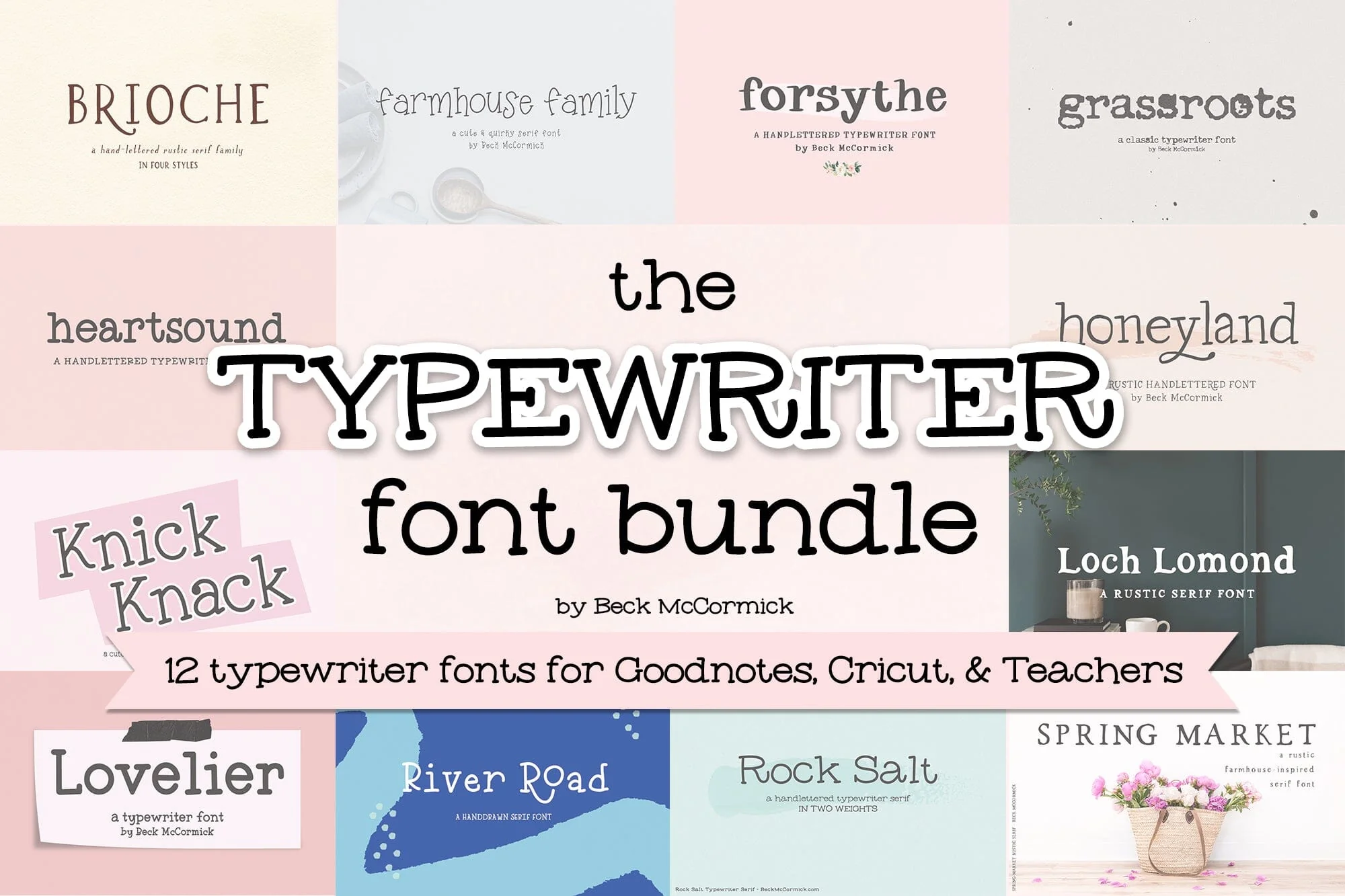
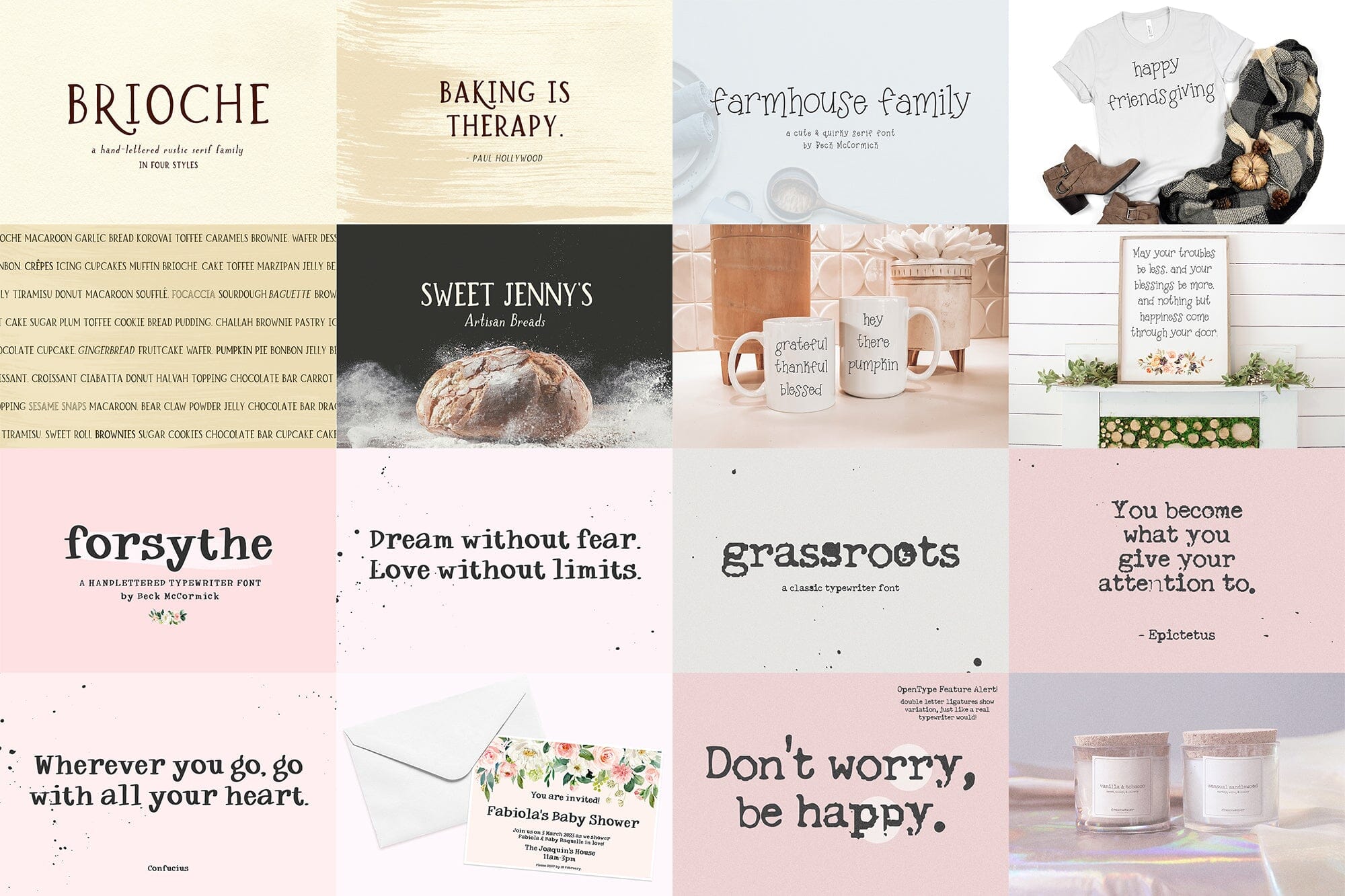
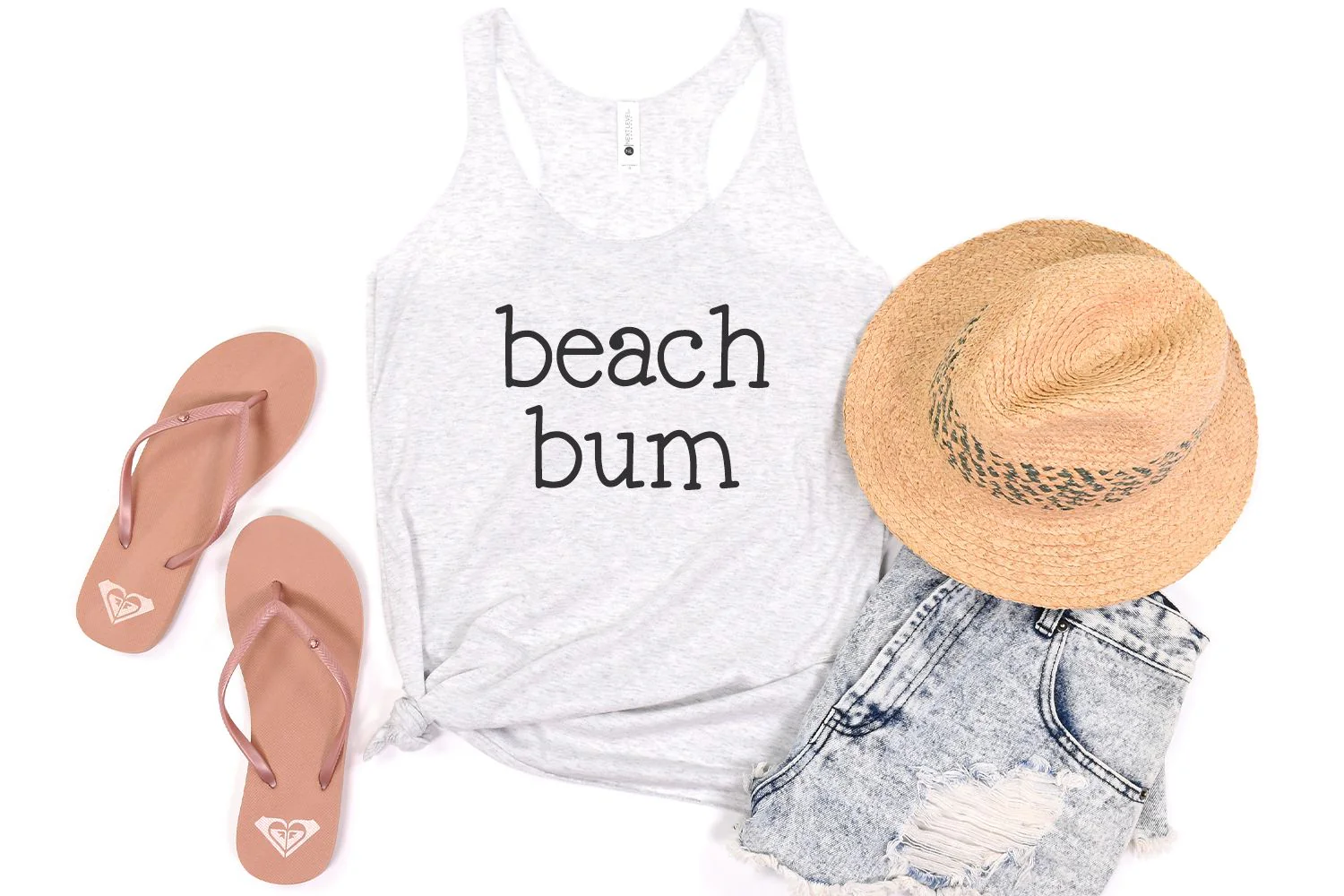
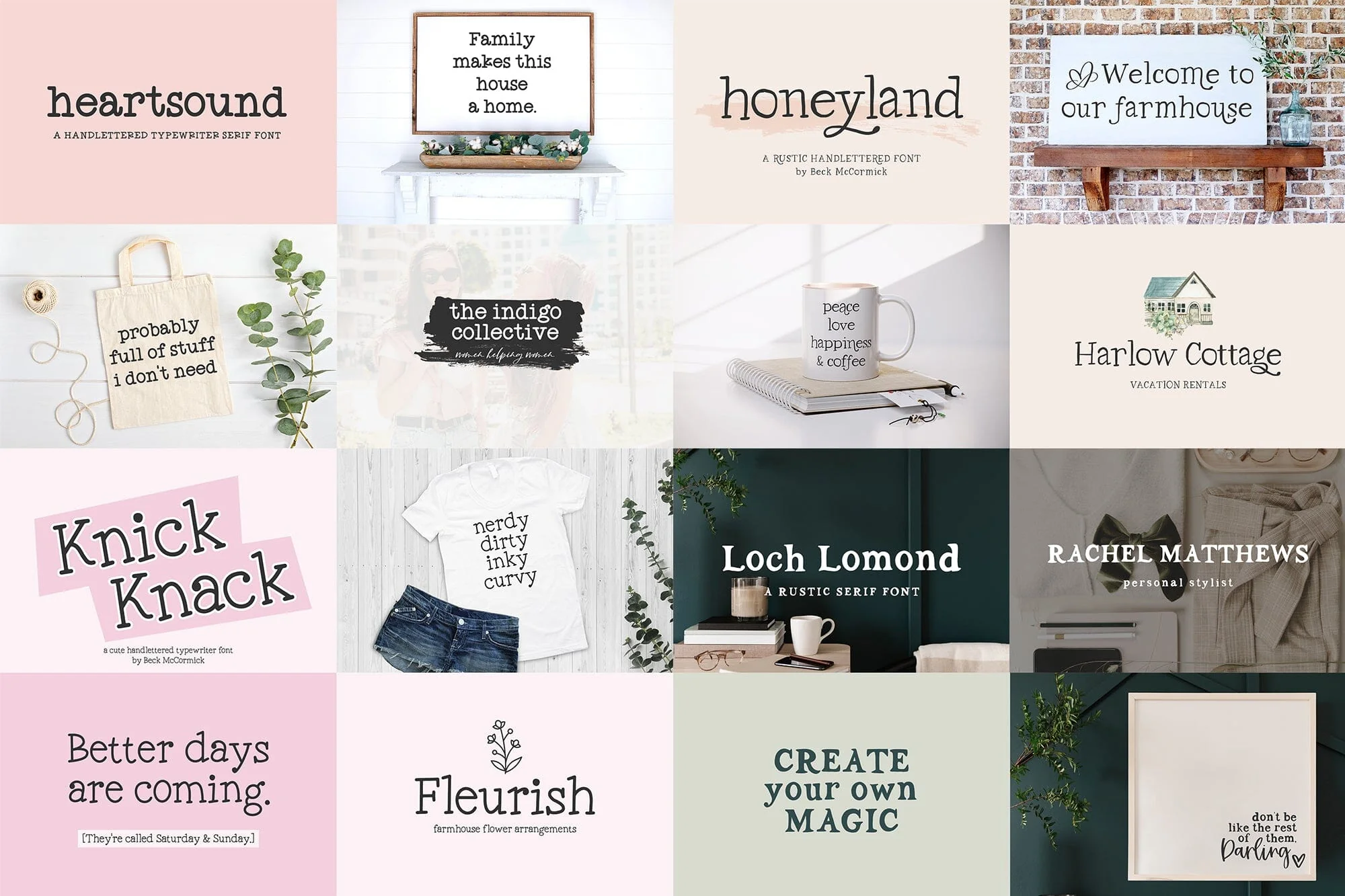
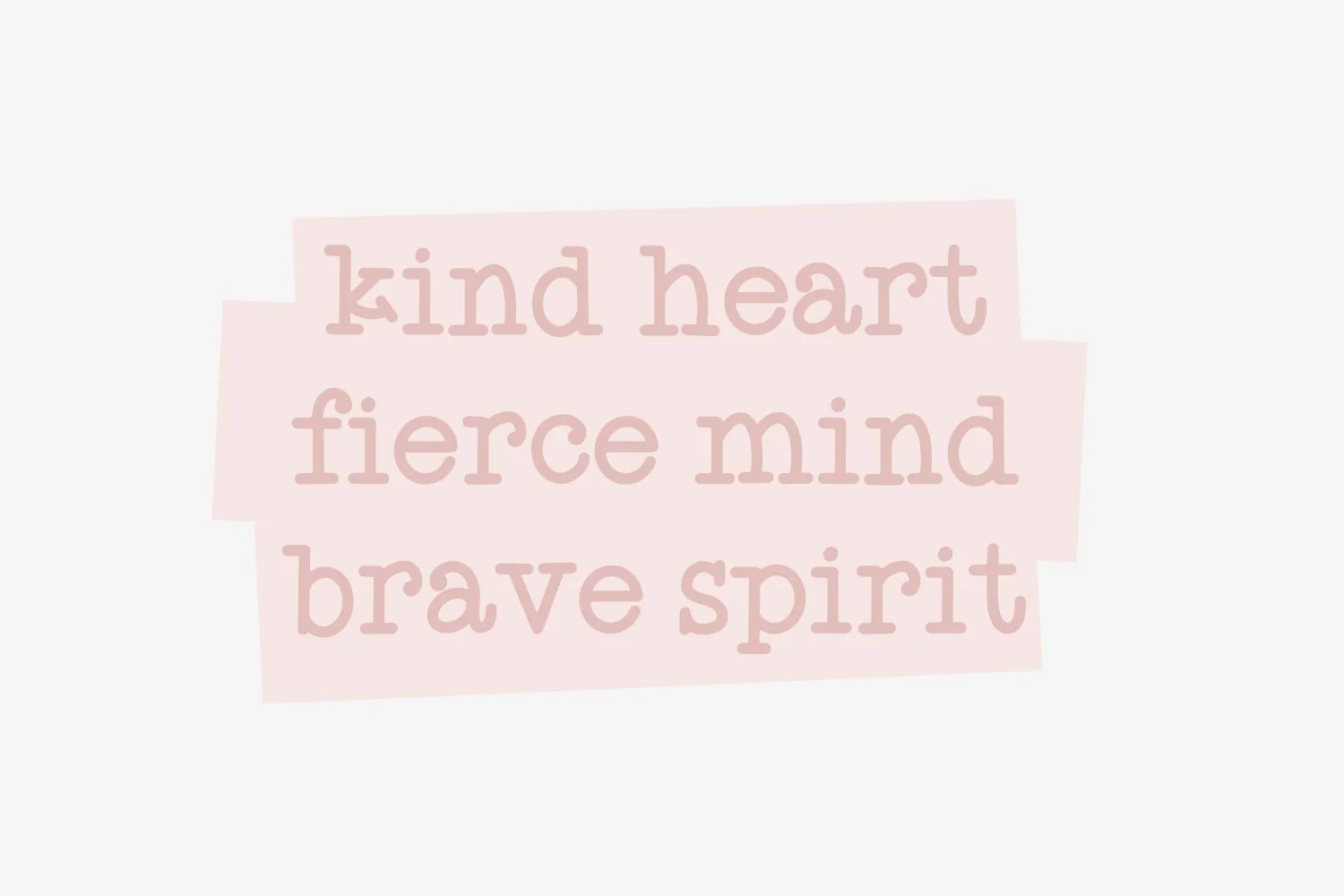
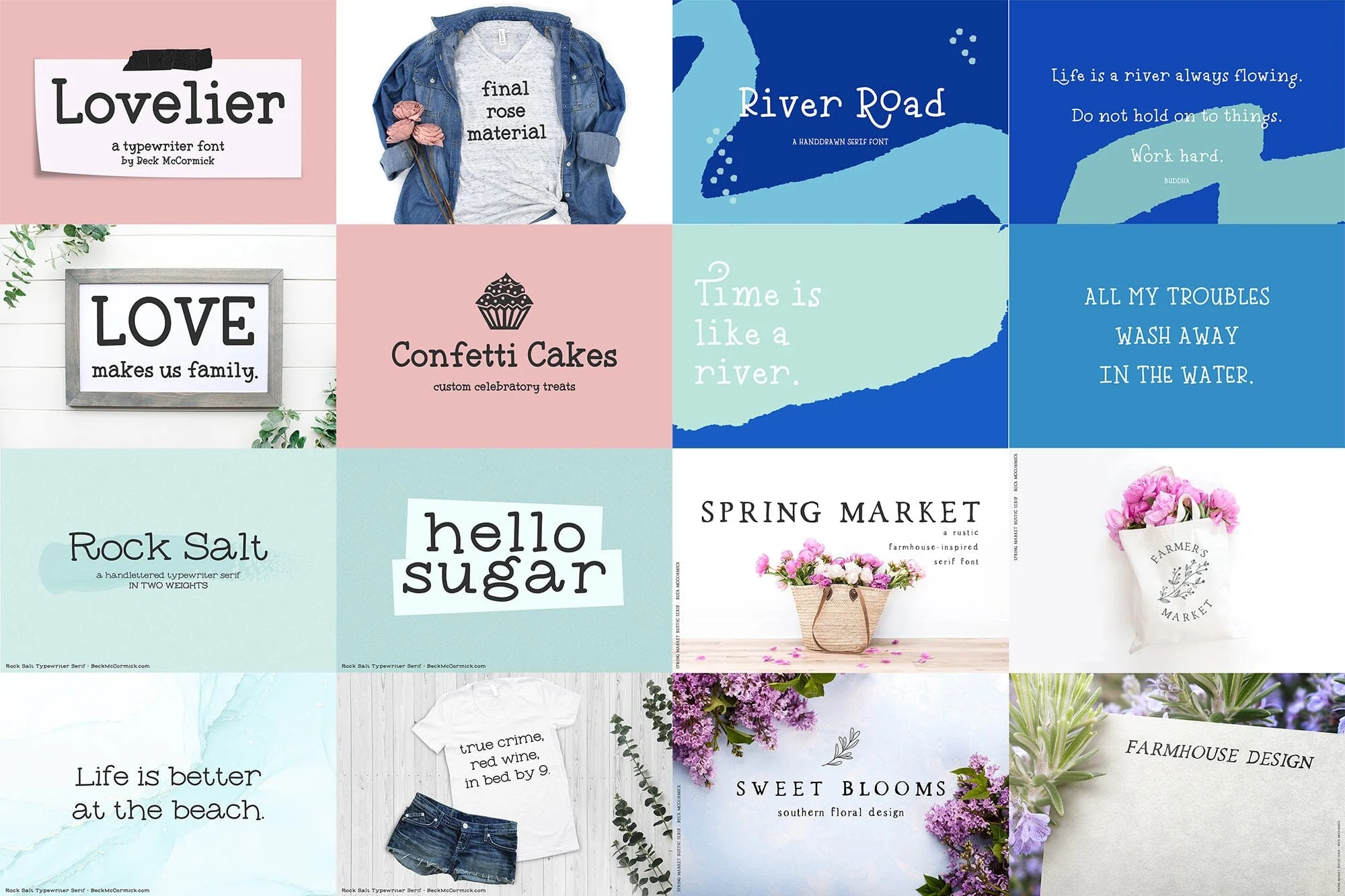
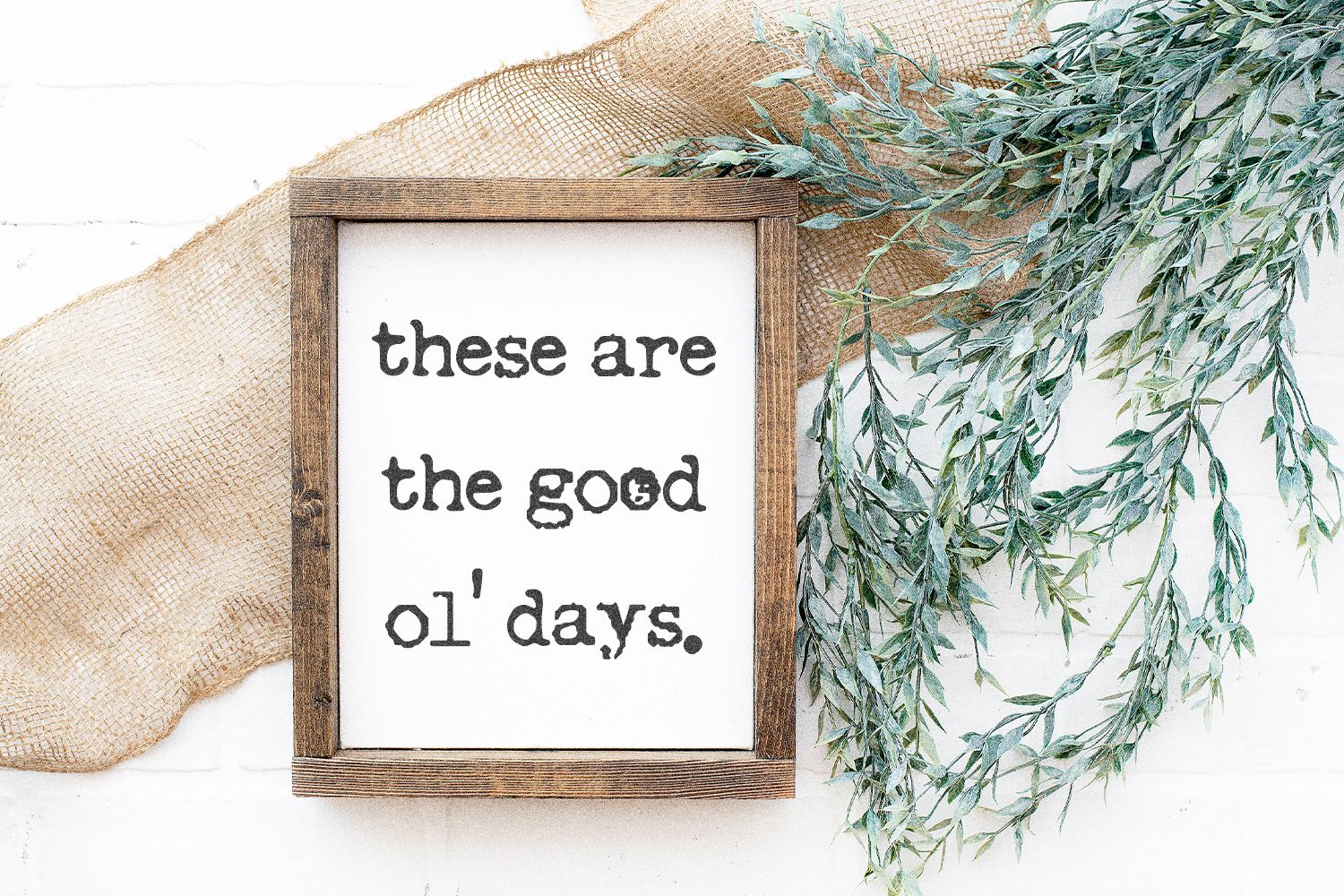
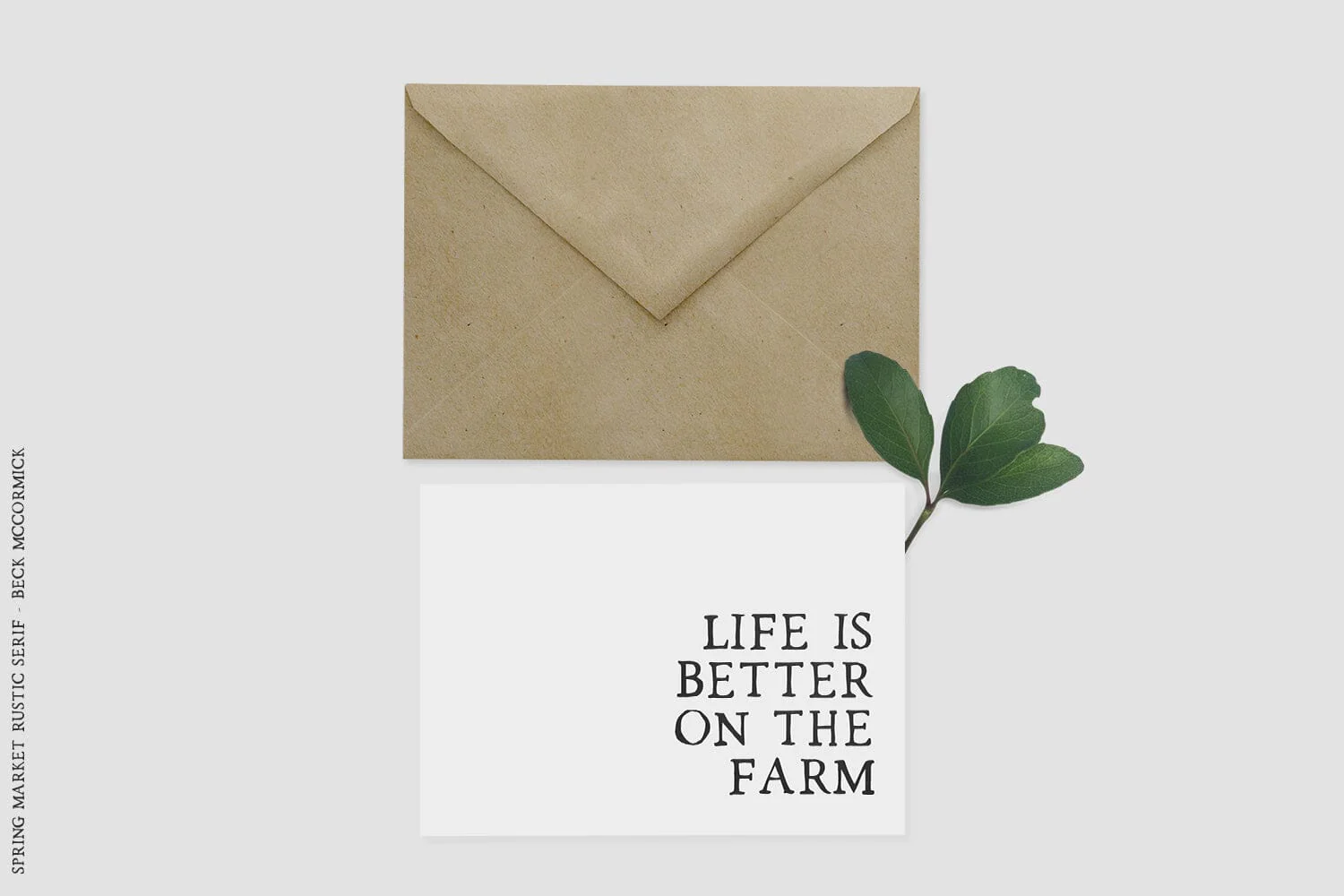
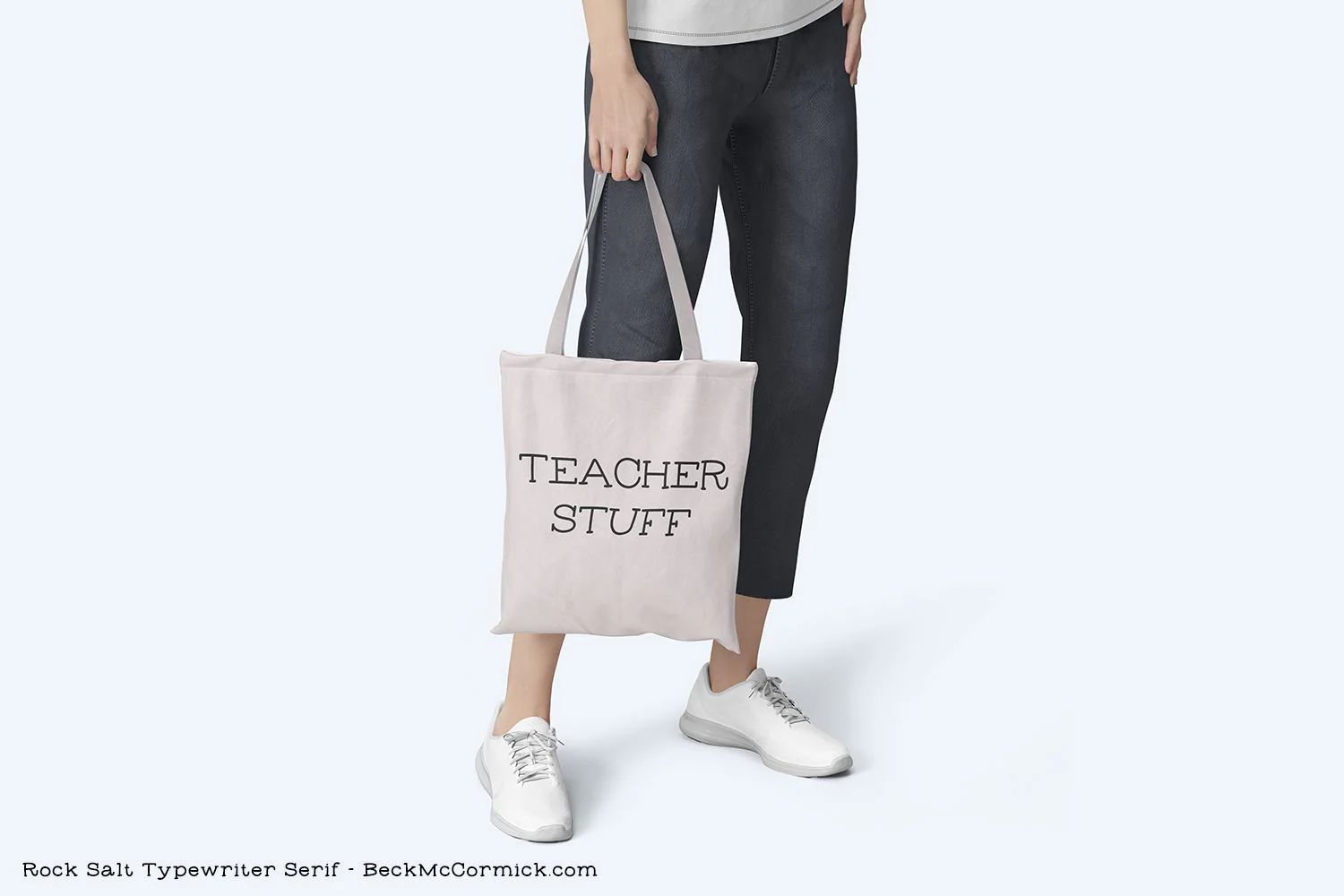
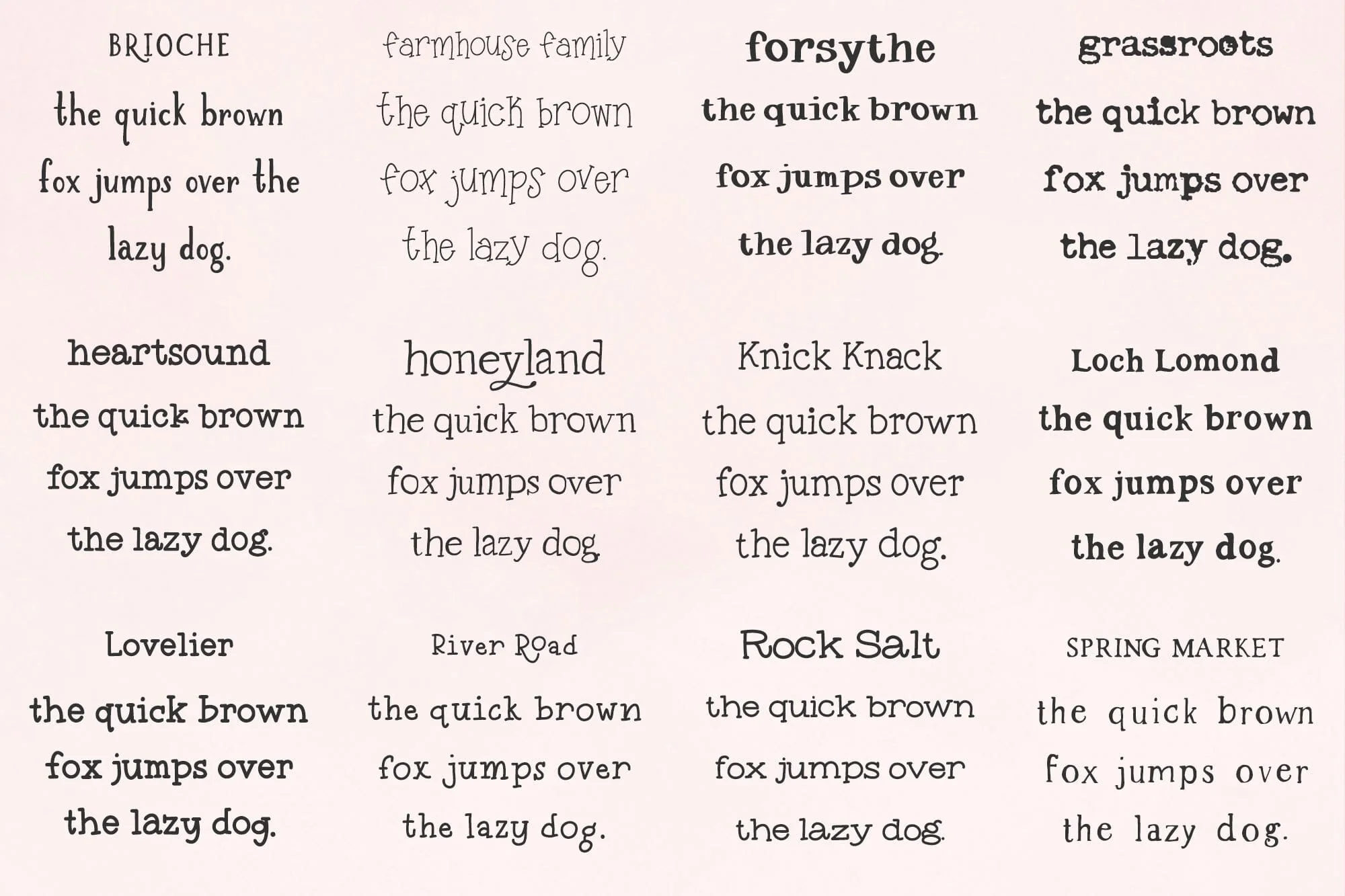
The Typewriter Font Bundle
Introducing the Typewriter Font Bundle, which includes 12 fonts! Ā This bundle was curated with the typewriter lover in mind. These fonts will be especially useful as GoodNotes fonts, Procreate fonts, and Cricut fonts!
You get the following fonts!
* BriocheĀ - a family of four rustic serif fonts in regular, bold, italic, and outline versions
* Farmhouse Family - a quirky font with adorable serifs
* Forsythe - a chunky typewriter font
* Grassroots - a feature-rich typewriter font with over 300 alternates & ligatures
* Heartsound - a cute, neat typewriter font
* Honeyland - a rustic farmhouse font with cute alternates
* Knick Knack - a tidy typewriter font
* Loch Lomond - a textured rustic serif font
* Lovelier - a clean, sweet typewriter font
* River Road - a cute typewriter font with ligatures
* Rock Salt - a lovely typewriter font in regular and bold versions
* Spring Market - my original, hugely popular rustic farmhouse serif font
Some suggested uses are:
- use with your favorite planner app (GoodNotes, Notability, or Procreate) to make some super cute weekly & monthly planners
- use as guidelines for handwriting practice - perfect for teachers that are teaching penmanship, or for the casual learner
- use to jazz up your note-taking for your latest classes in school - kept things totally legible but cute, making it even more fun to study
- use to create cute flyers, posters, or classroom elements for bulletin boards, name tags, & more